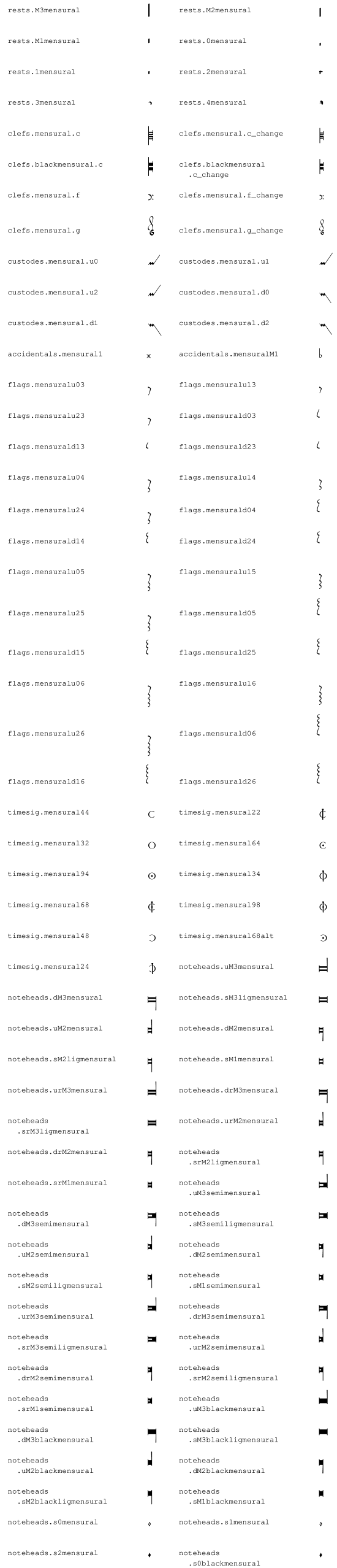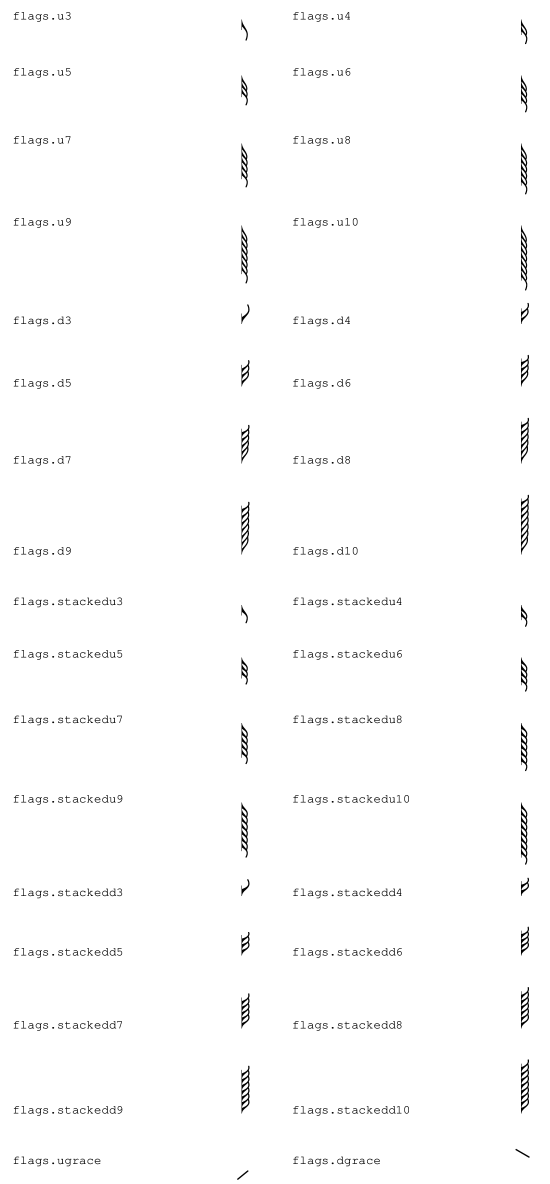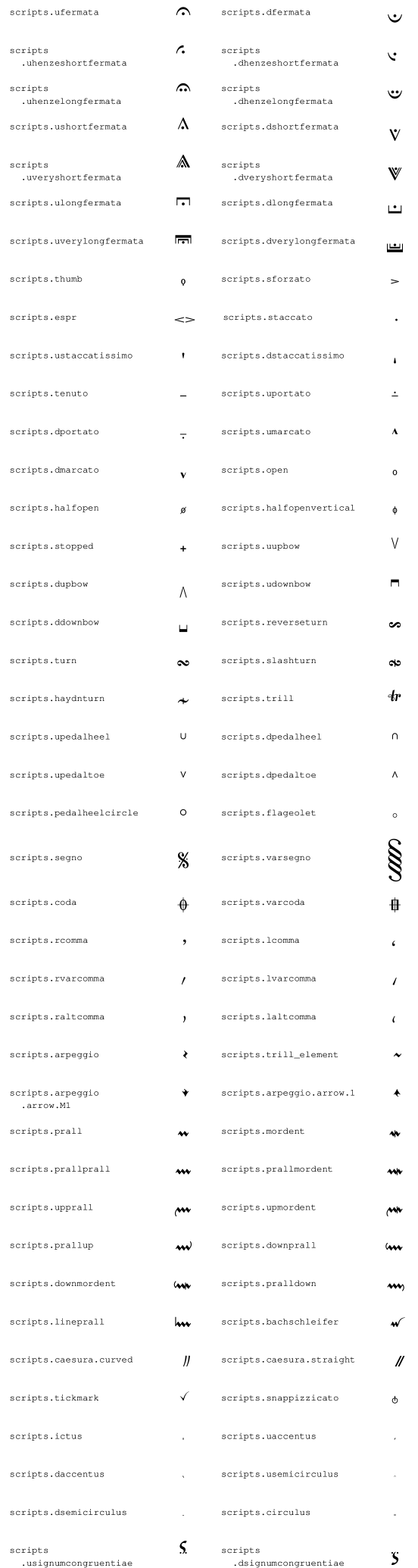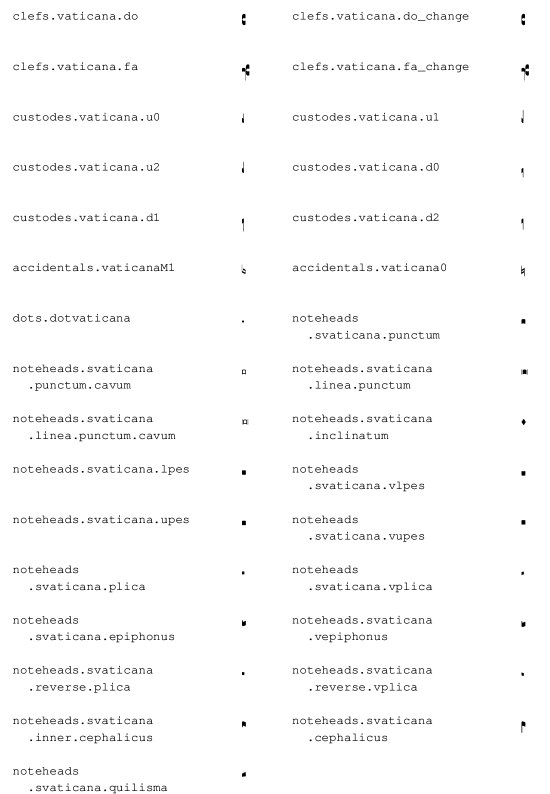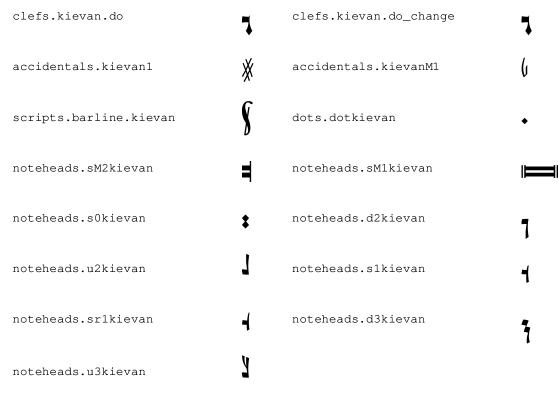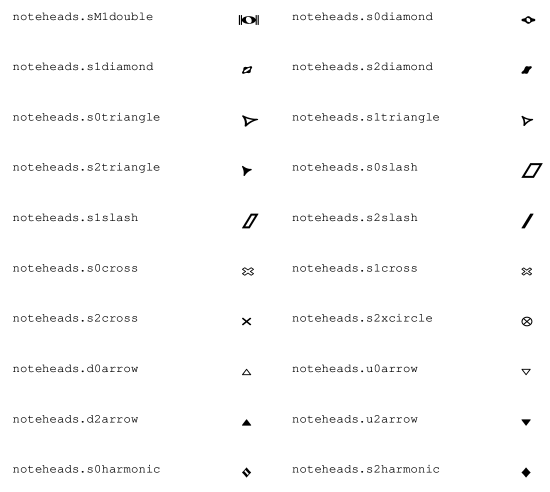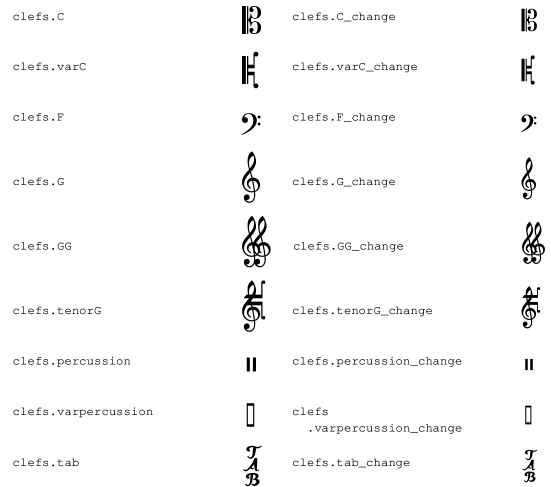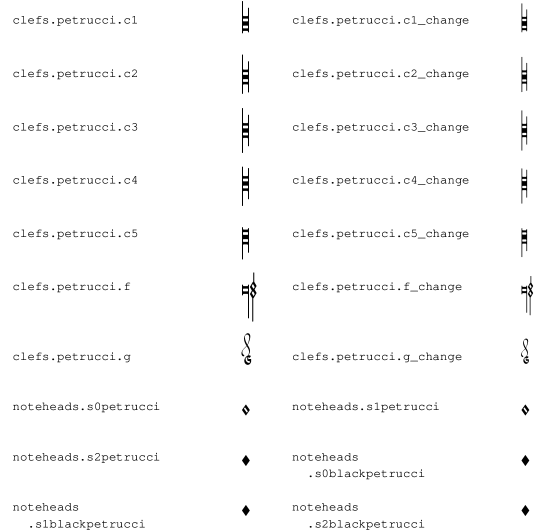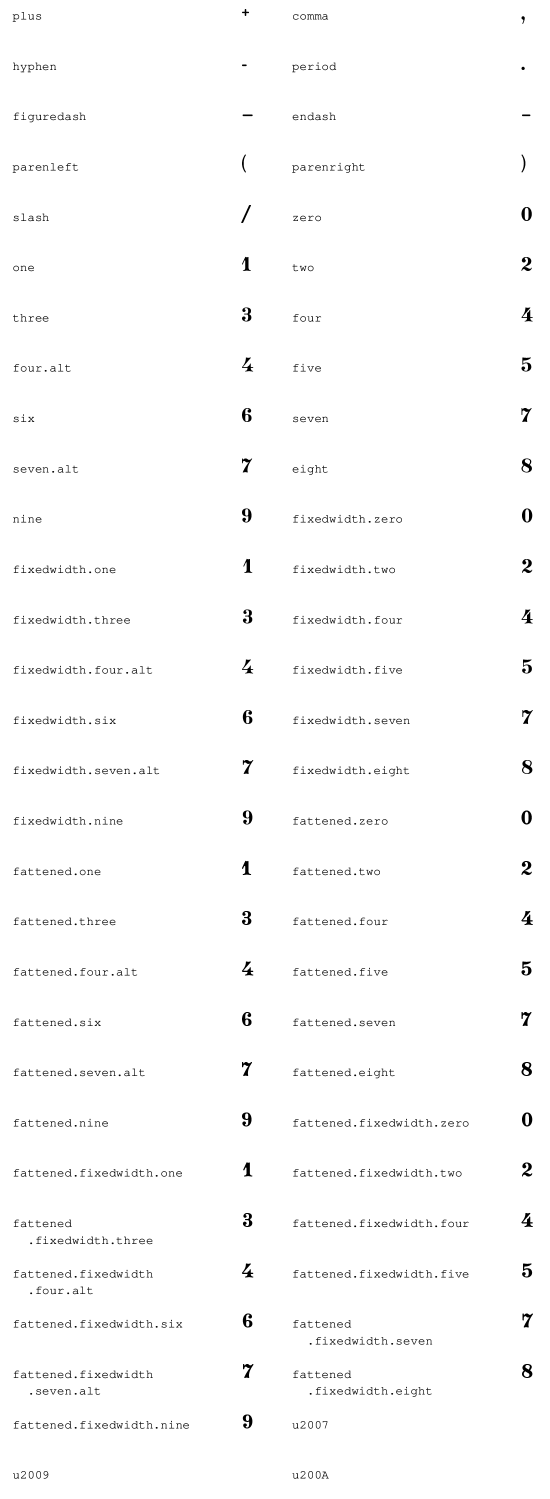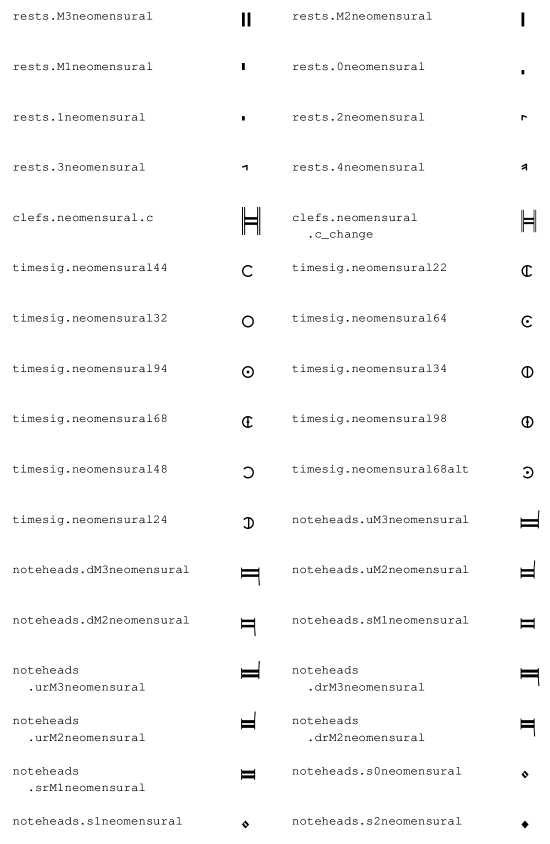
B.8 The Emmentaler font
The Emmentaler font consists of two subsets of glyphs: “Feta”, used for classical notation, and “Parmesan”, used for ancient notation.
Any glyph within the Emmentaler font can be accessed directly by using text markup along with the name of the glyph (as shown in the tables below). For example;
B.8.1 Modern glyph charts
All glyphs of the “Feta” subset.
Clef glyphs
Time Signature glyphs
Number glyphs
Figured bass symbol glyphs
Accidental glyphs
Default note head glyphs
Special note head glyphs
Note head glyphs for shape notes
Rest glyphs
Flag glyphs
Dot glyphs
Dynamic glyphs
Script glyphs
Arrowhead glyphs
Bracket-tip glyphs
Pedal glyphs
Accordion glyphs
Tie glyphs
B.8.2 Ancient glyph charts
All glyphs of the “Parmesan” subset.
Vaticana glyphs
Medicaea glyphs
Hufnagel glyphs
Mensural glyphs
Neomensural glyphs
Petrucci glyphs
Solesmes glyphs
Kievan Notation glyphs